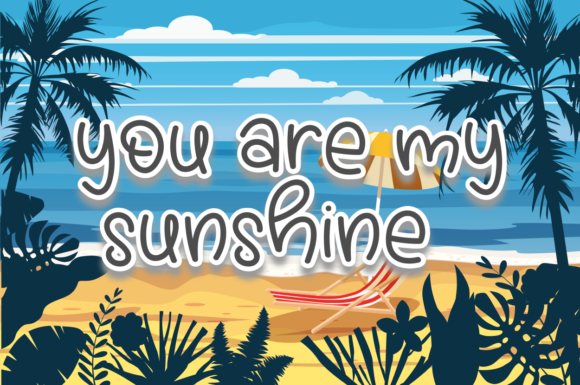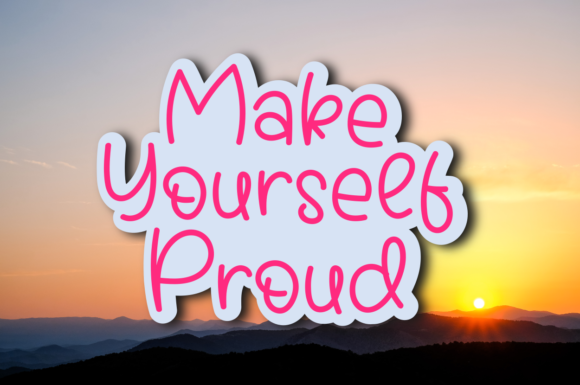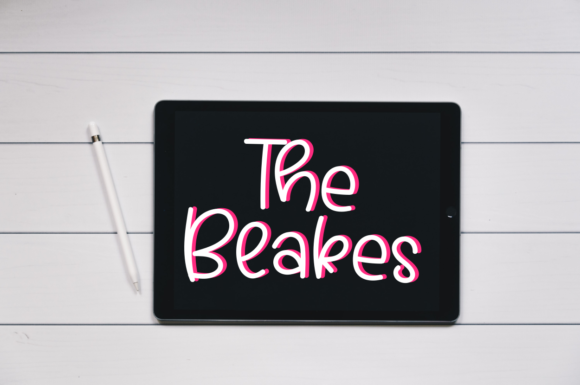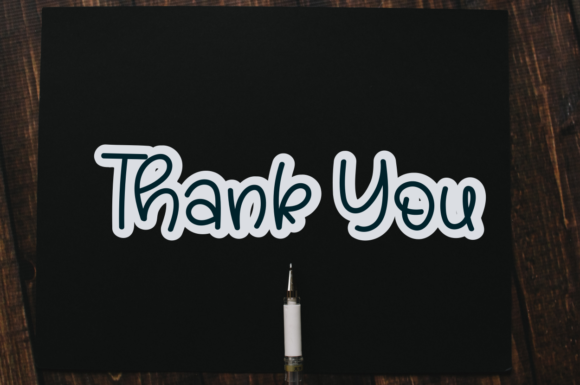
Honey Apple Font
About Honey Apple Font
Honey Apple is a fun, jolly, quirky handwritten font, featuring a lovely style. No matter the topic, this font will be an incredibly asset to your fonts’ library, as it has the potential to elevate any creation.